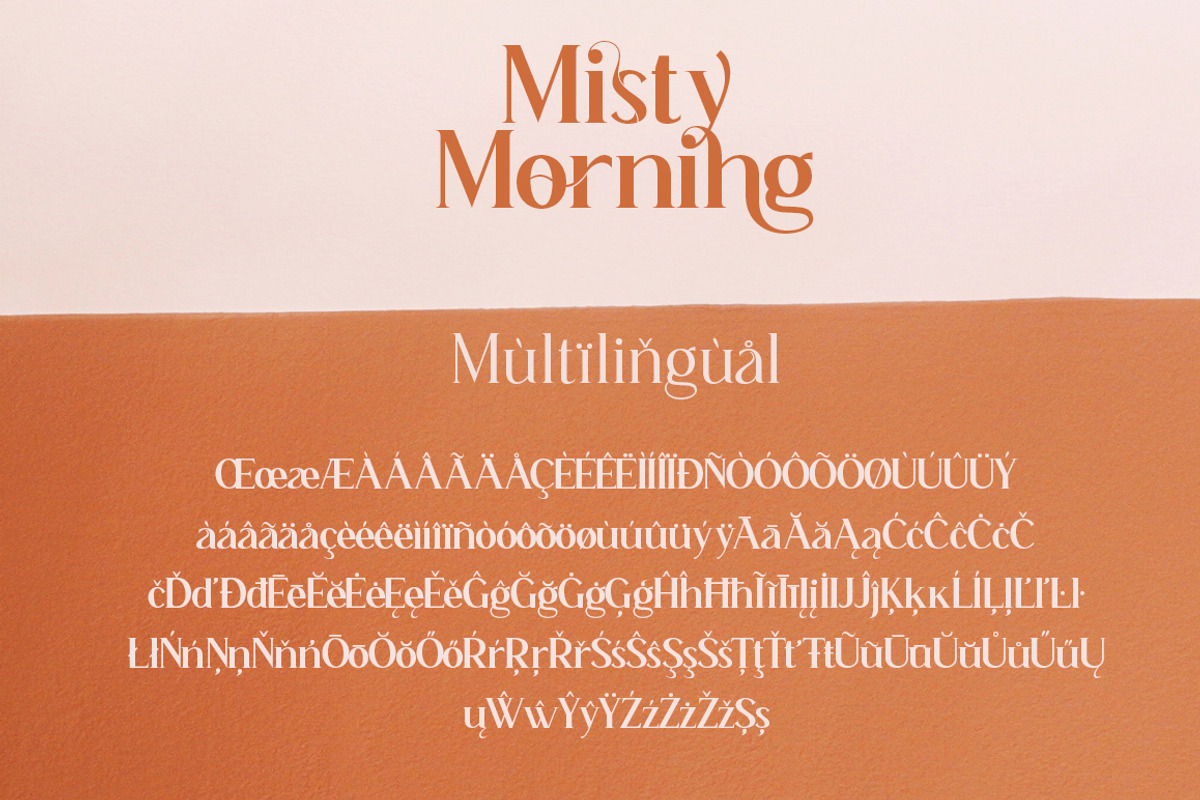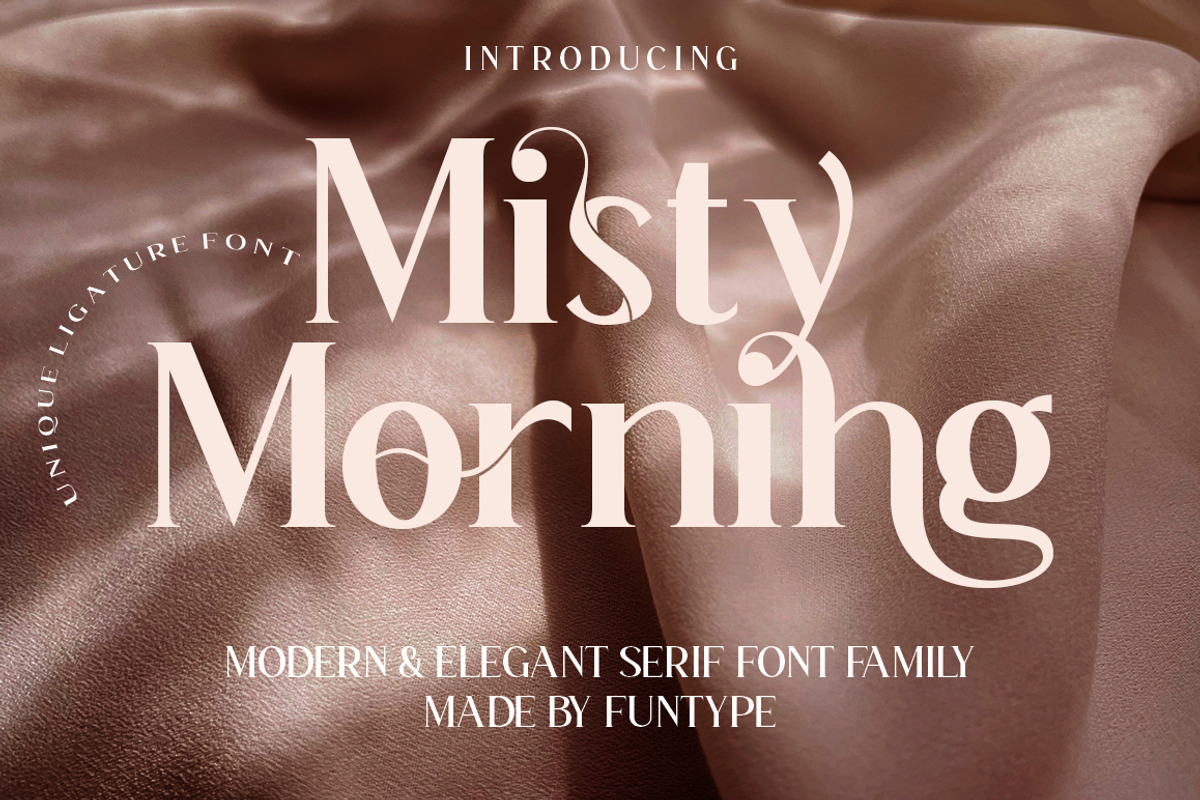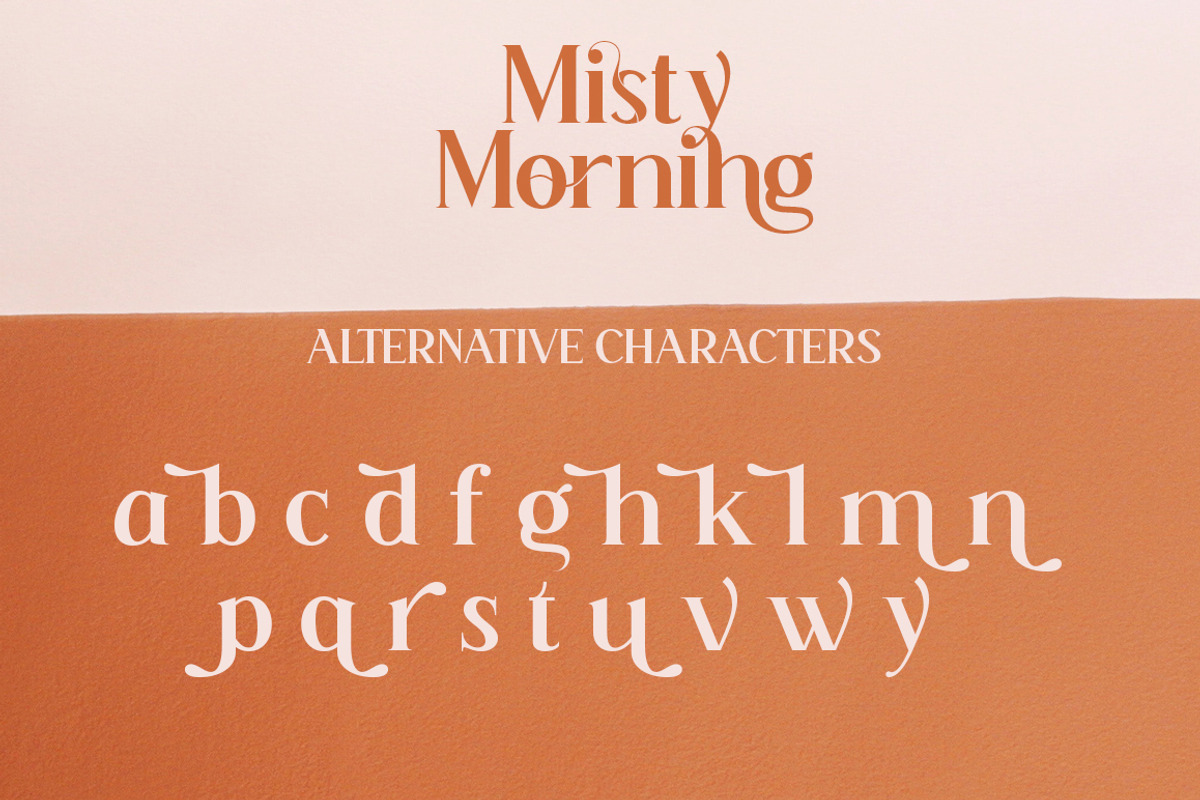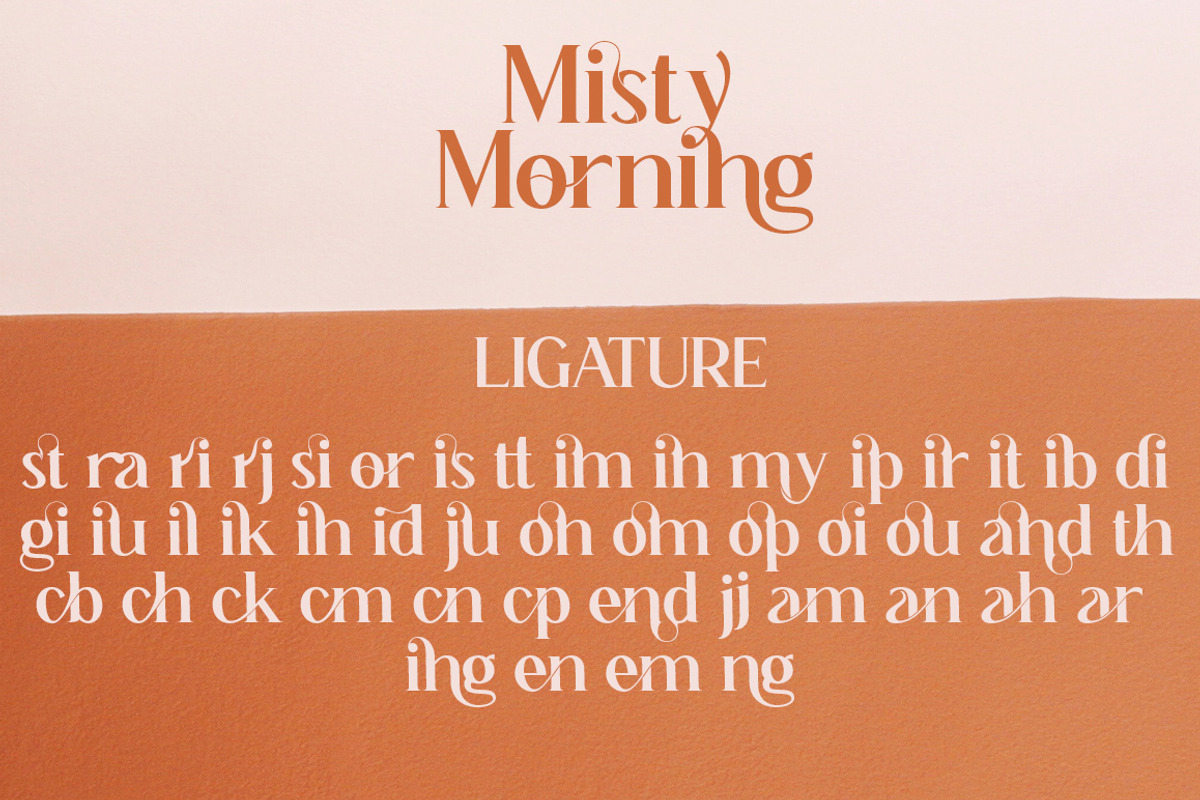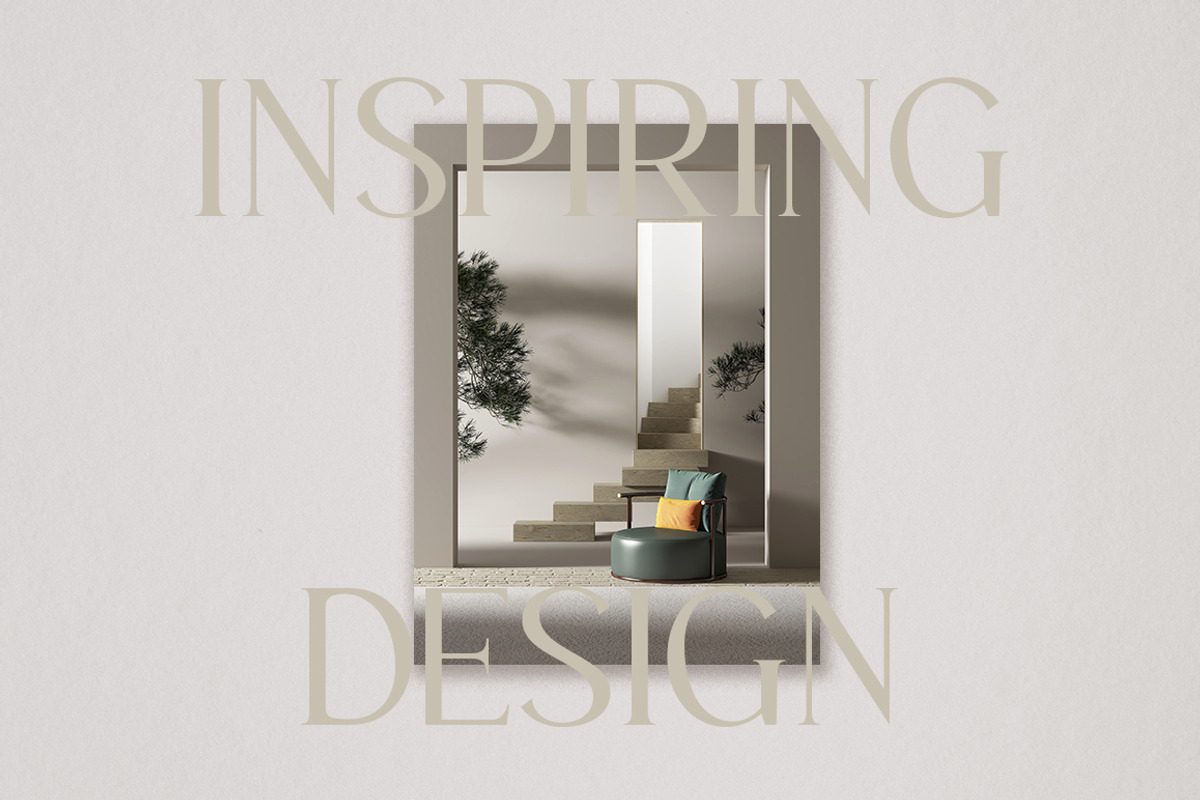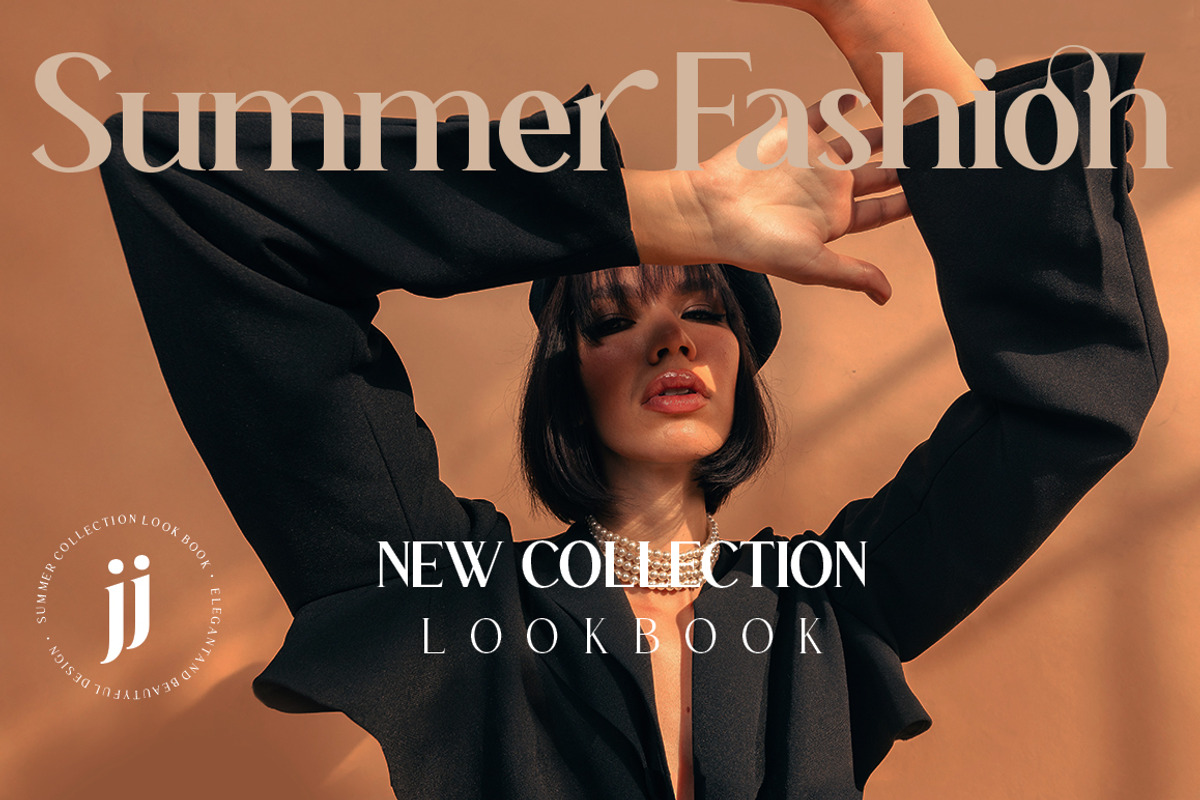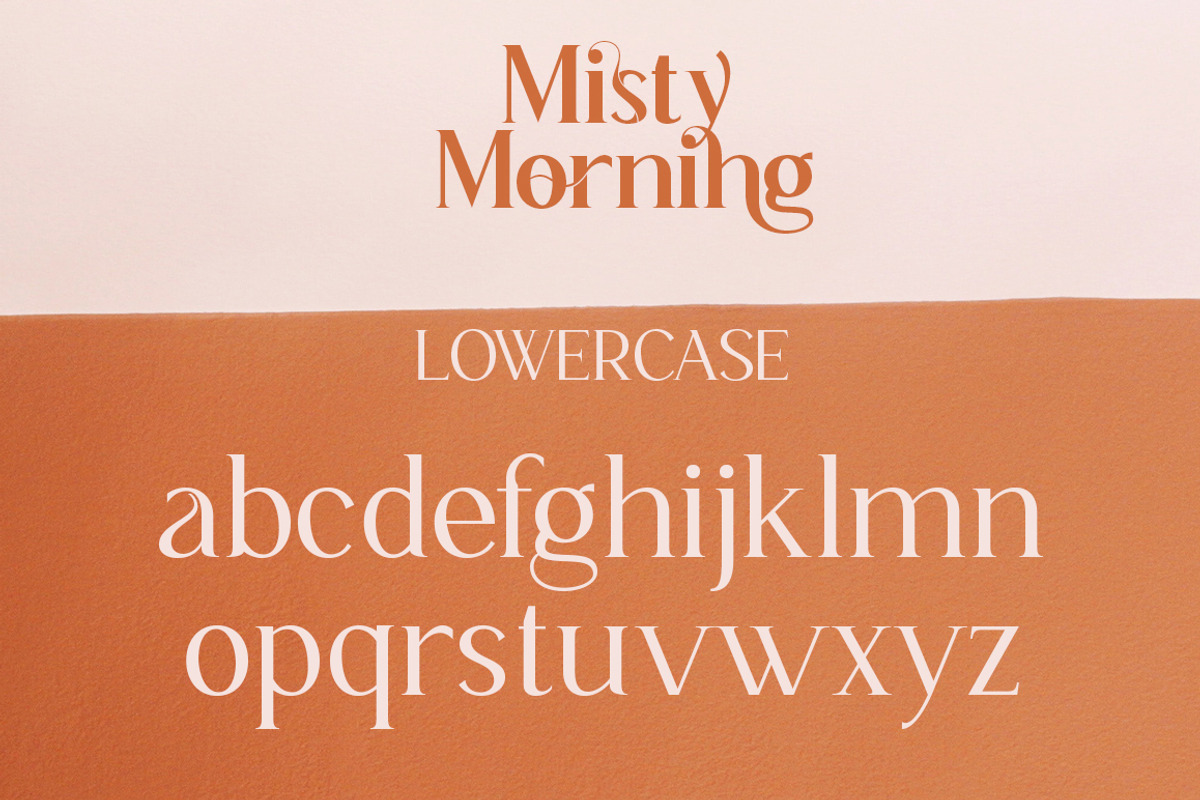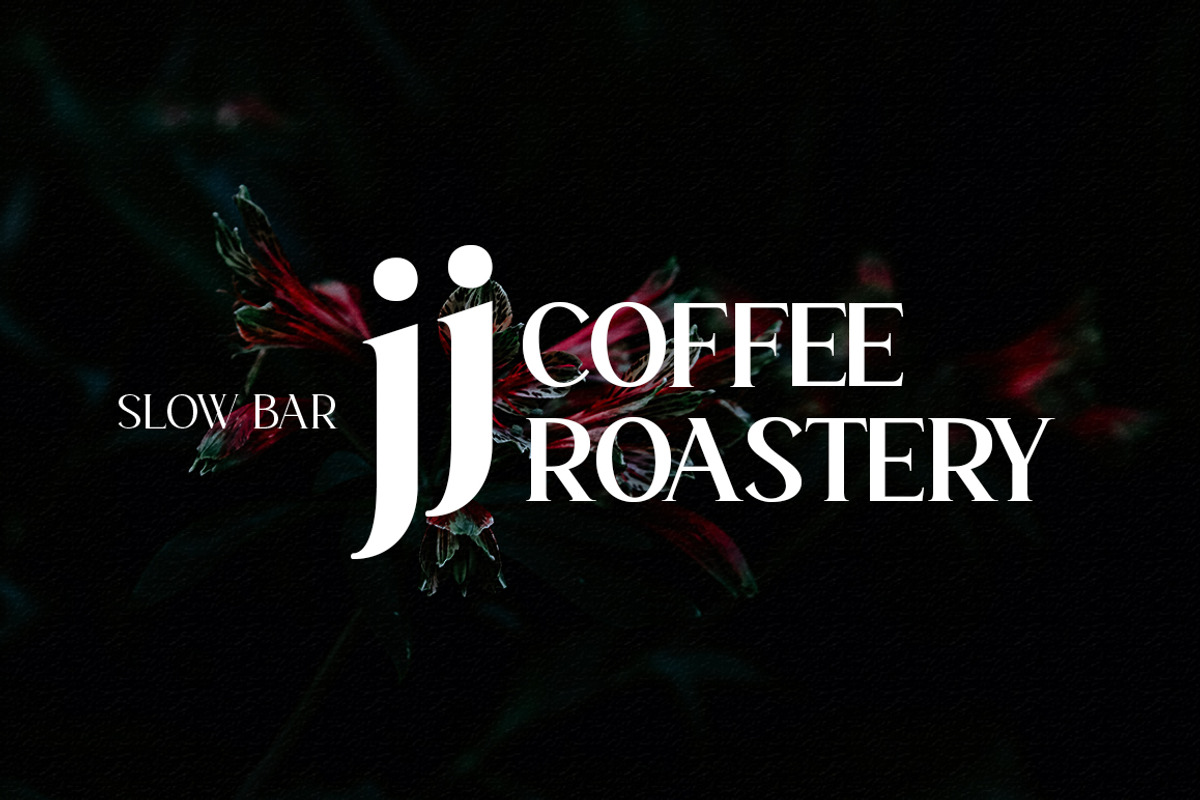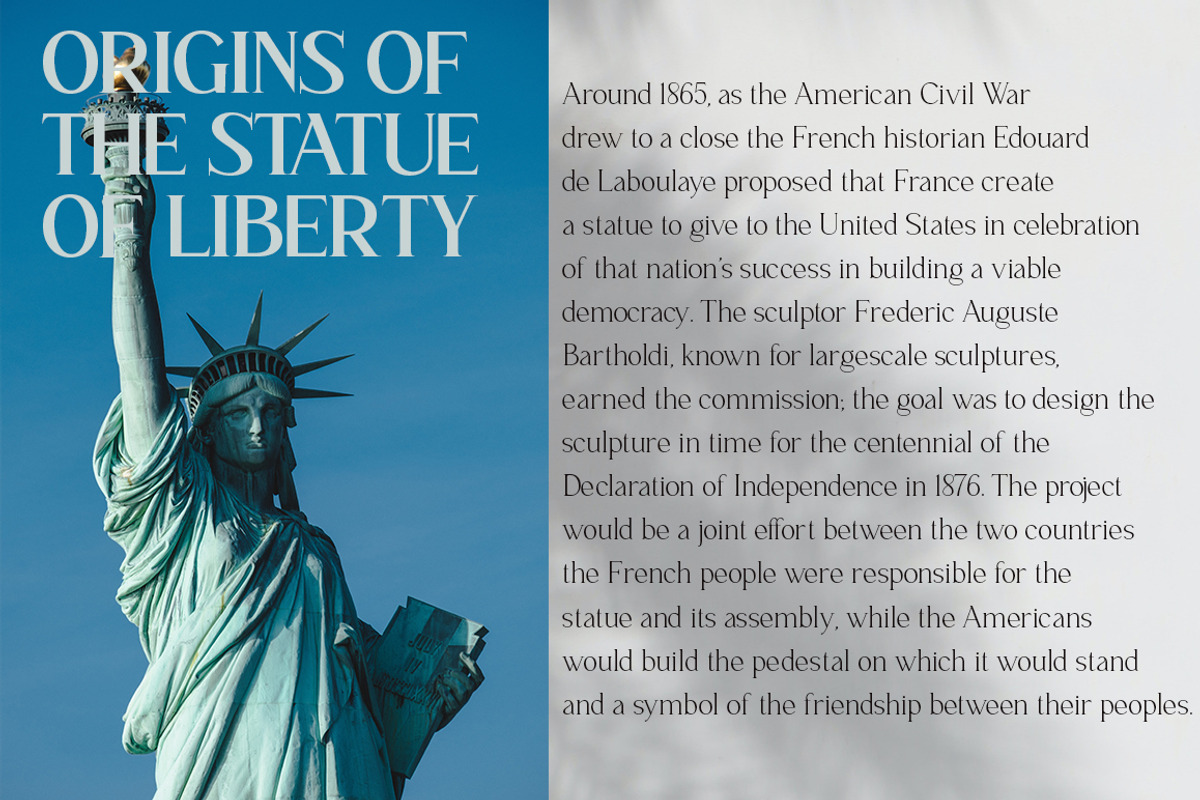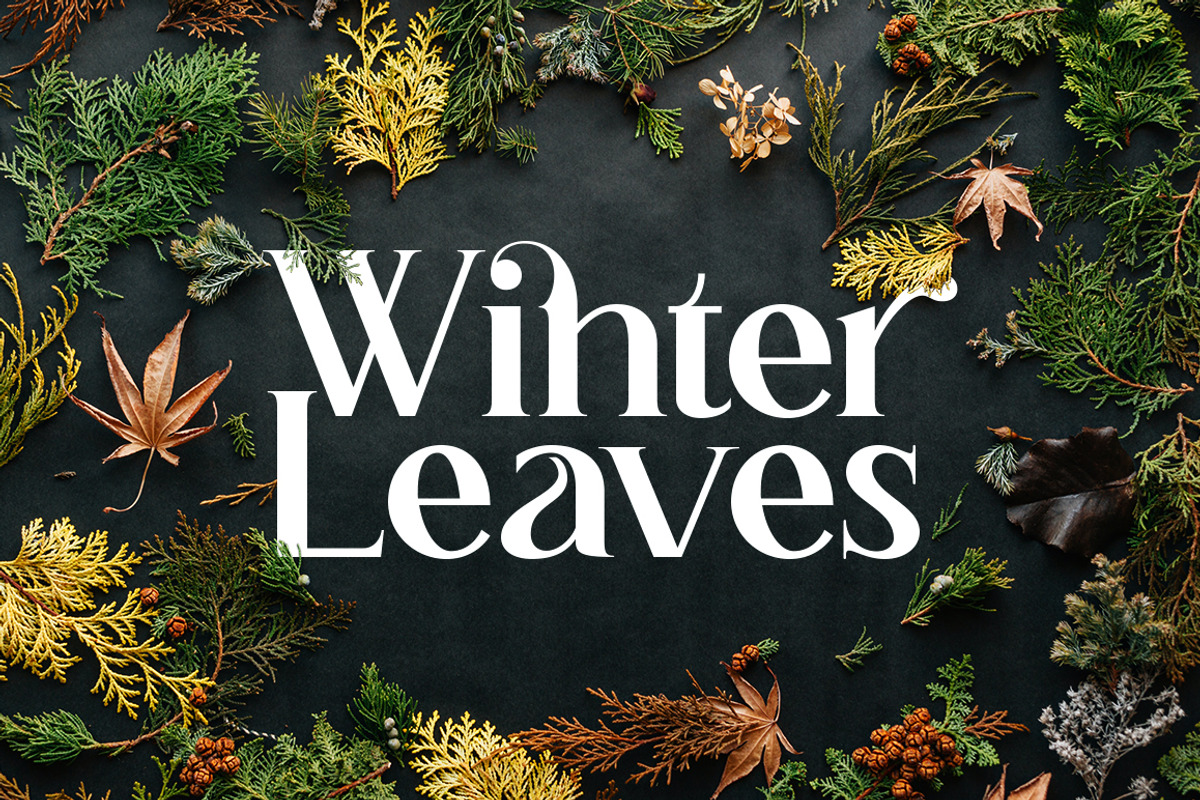
Misty Morning
Misty Morning is a serif font family with 7 weights, designed in a modern and elegant way, so that it can be good in all your design projects.
Misty Morning is also included full set of:
- uppercase and lowercase letters
- multilingual symbols
- numerals
- punctuation